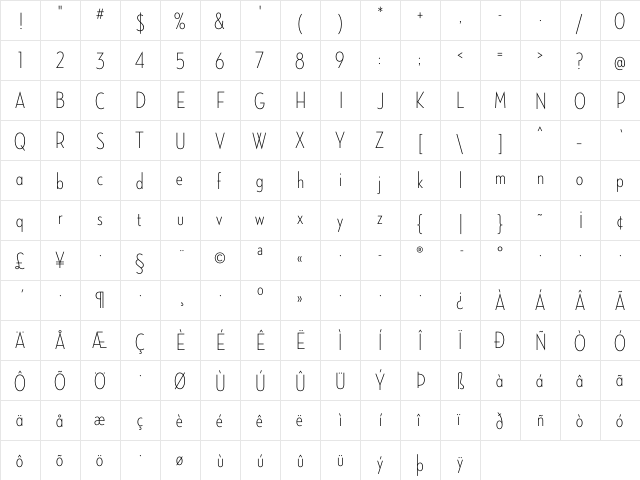
Neutraface Condensed Light Alt
| Designer | Christian Schwartz |
Design Context for Neutraface Condensed Typeface
Neutraface Condensed takes a measured approach to typography — its balanced proportions and neutral character make it a reliable workhorse for both digital and print work. The delicate stroke weight brings airiness and refinement to layouts. The condensed width makes it efficient for tight spaces without sacrificing legibility.